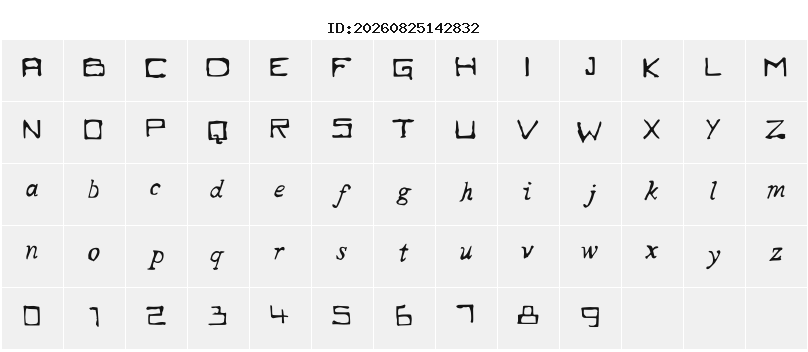
SQUAREBABY Preview
• Font Name: SQUAREBABY
• Full Font Name: SQUAREBABY
• PostScript Name: SQUAREBABY
About SQUAREBABY.ttf
SQUAREBABY.ttf is a modern, elegant sans-serif font designed for ultimate readability and visual harmony. Perfect for branding, headlines, web design, and print materials.